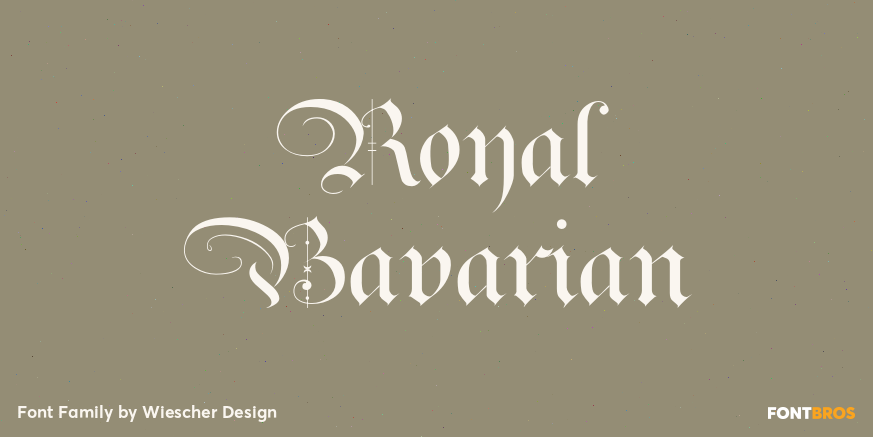
Royal Bavarian
About Royal Bavarian
RoyalBavarian was comissioned by King Ludwig 1st of Bavaria about 1834. He was probably the greatest king Bavaria ever had, but he fell in disgrace for a short affair with the famous infamous Lola Montez and subsequently had to resign. He died 1868 peaceful…